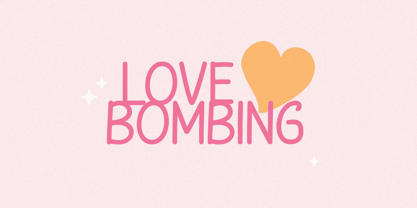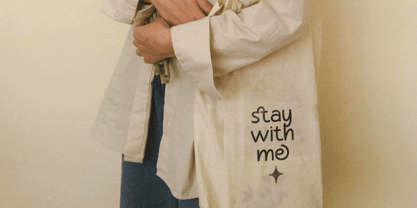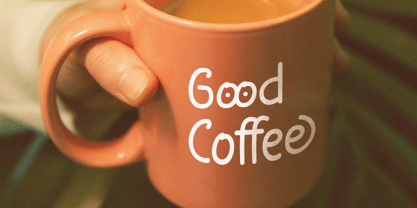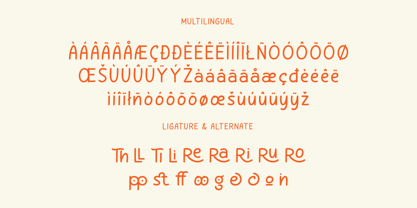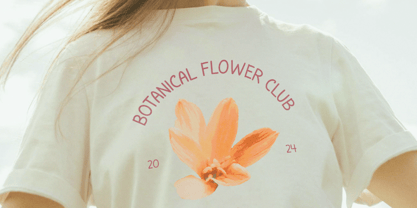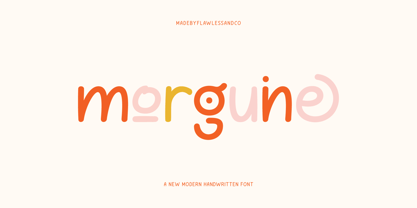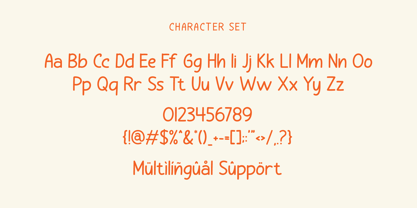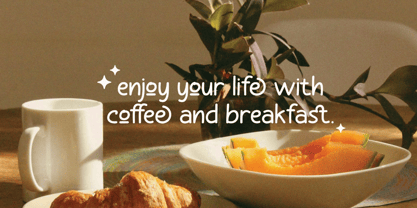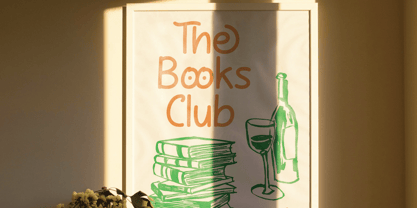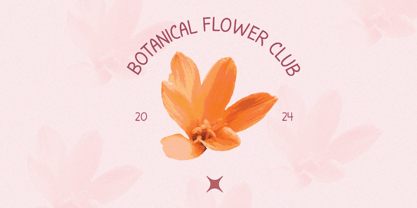
Morguine
by Flawlessandco
The Morguine Font Family was designed by Achmad Yani and published by Flawlessandco. Morguine contains 1 styles. More about this family
Introducing Morguine, a modern handwritten sans serif font that blends elegance with a natural touch. With its smooth strokes and contemporary feel, Morguine is perfect for branding, logos, social media, and creative projects. Add a stylish, personal touch to your designs with this beautifully crafted font!
There's some connected letters and some alternates that suitable for any graphic designs such as branding materials, print, business cards, logo, poster, t-shirt, photography, quotes, etc.
This font support for some multilingual. Also contains uppercase A-Z and lowercase a-z, alternate character, numbers 0-9, alternates & ligatures, and some punctuation.